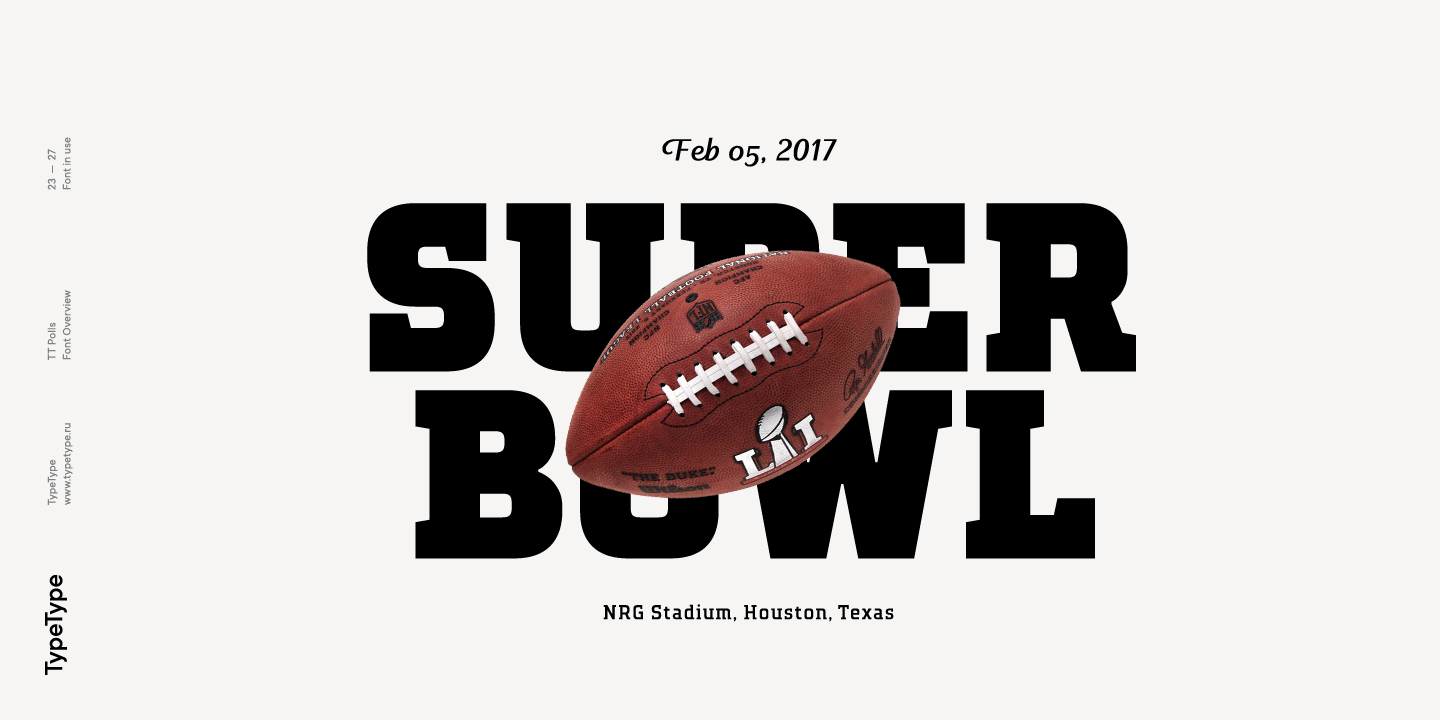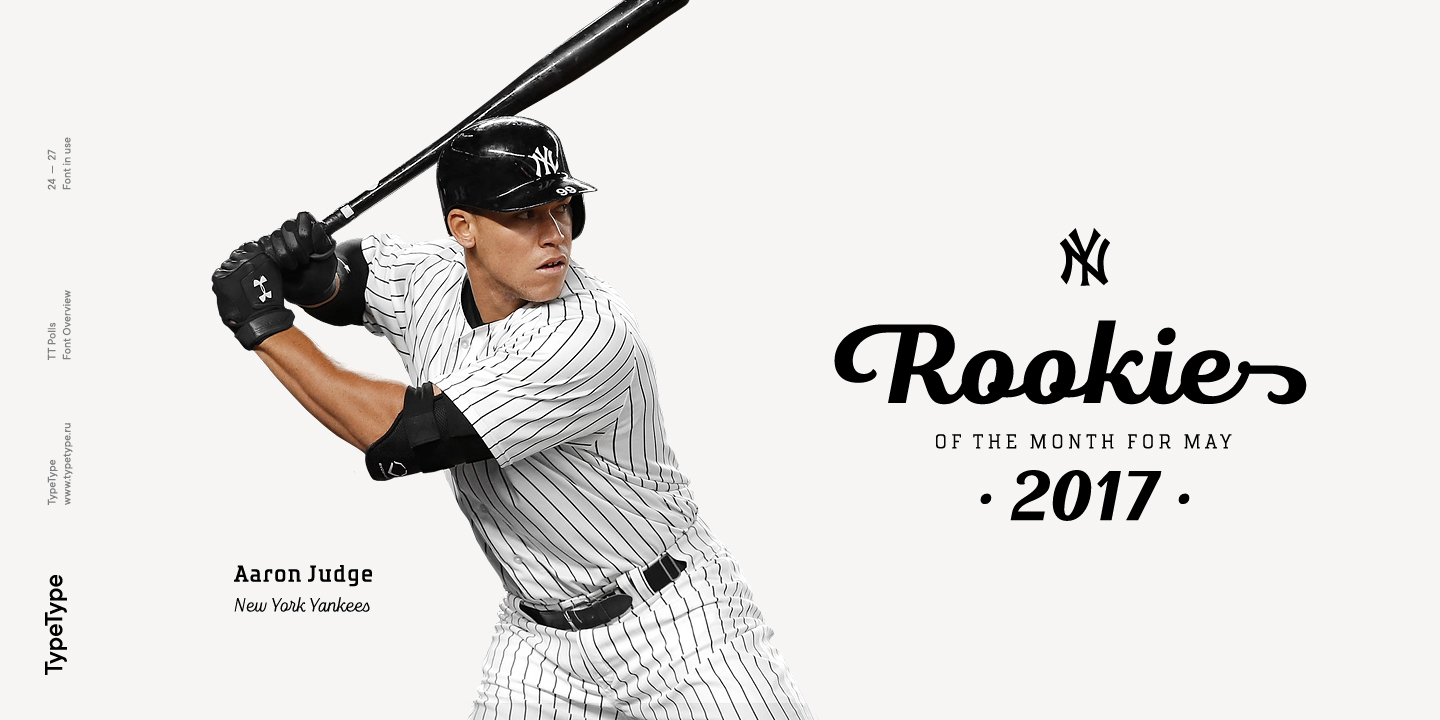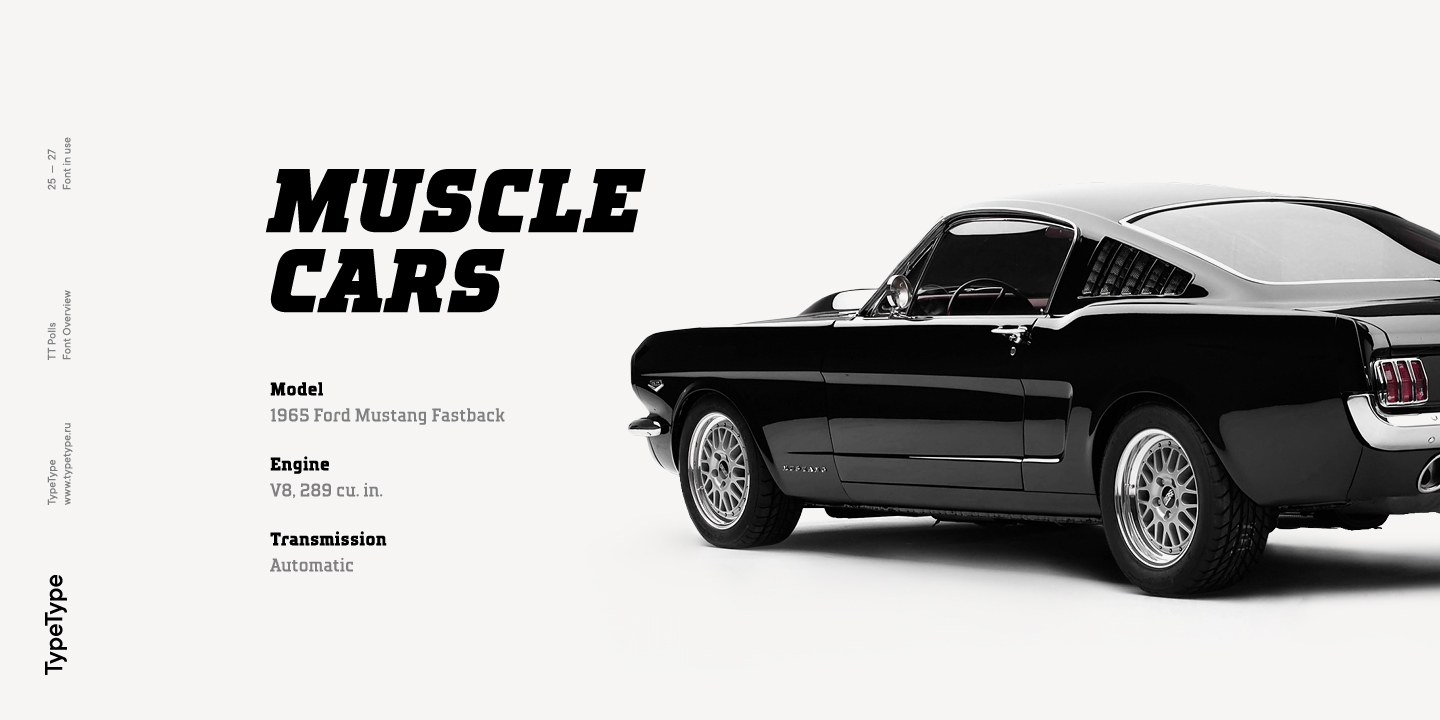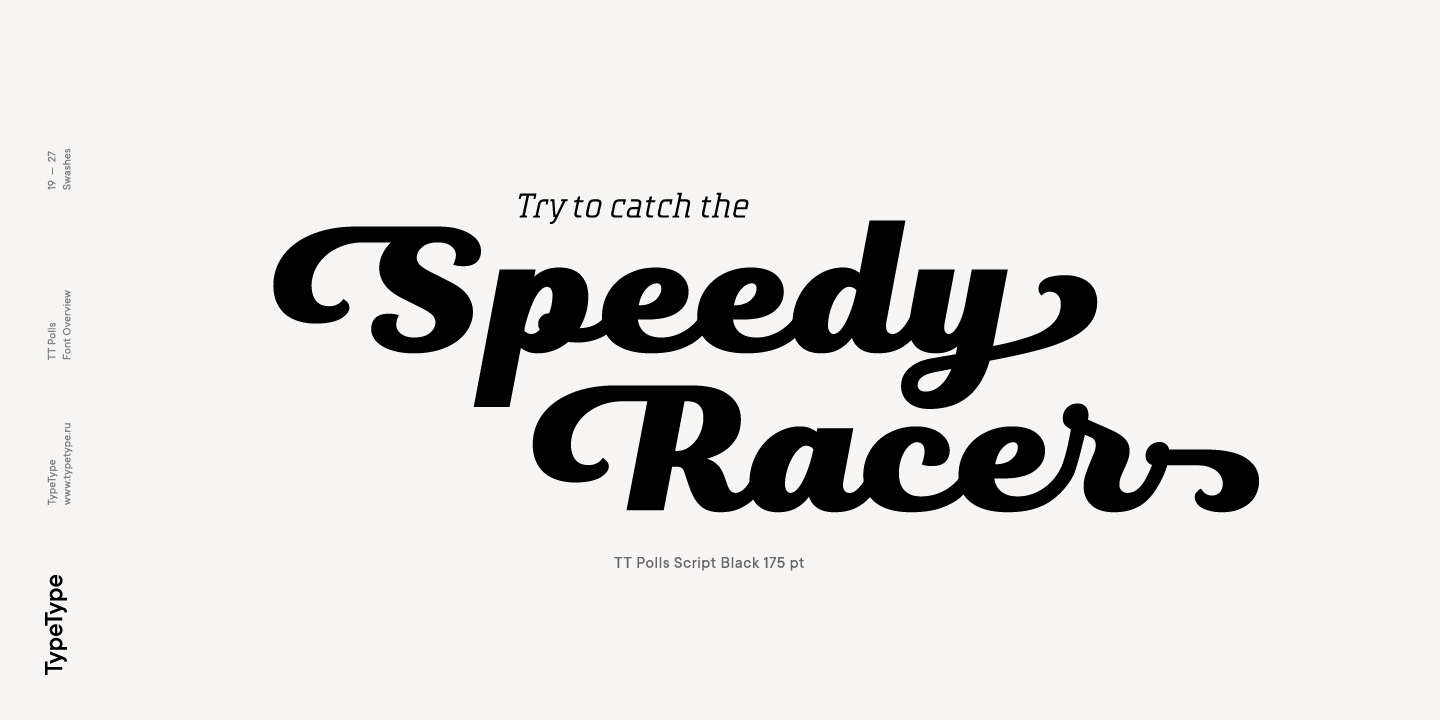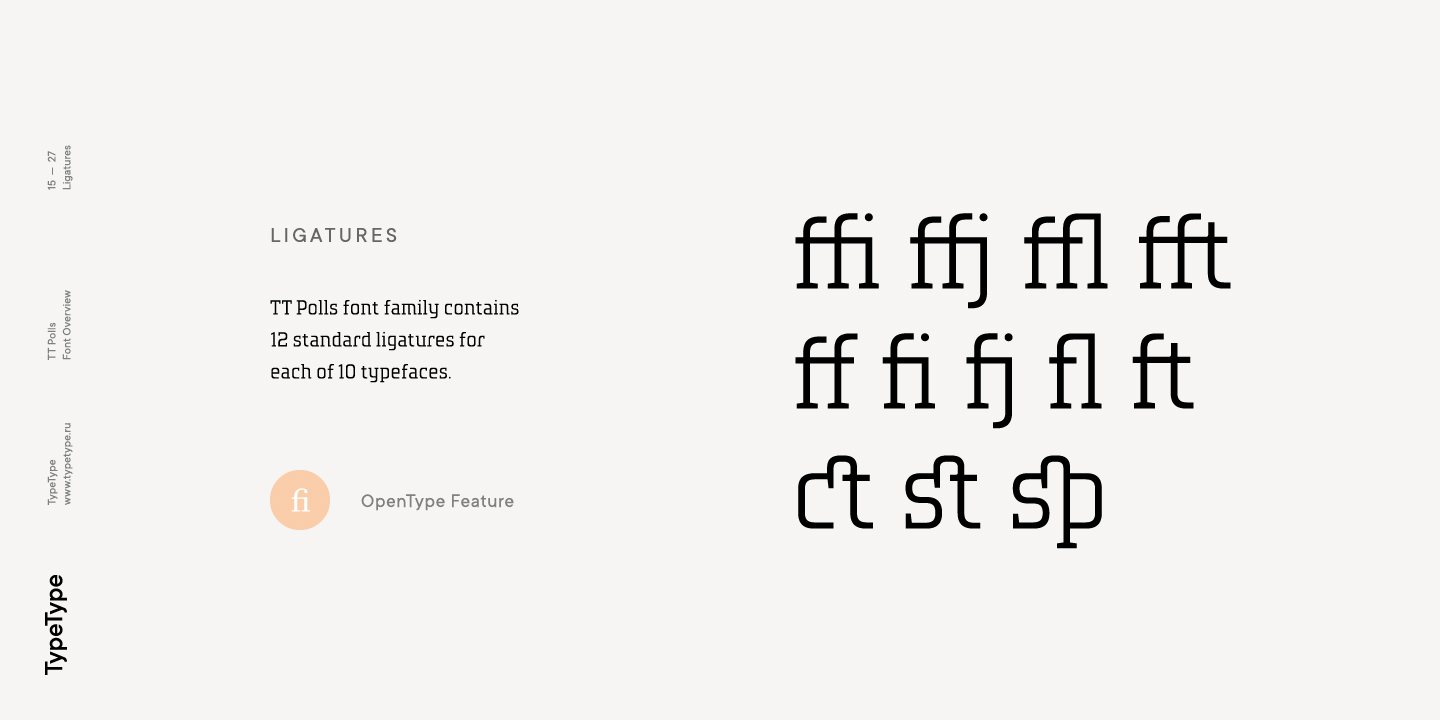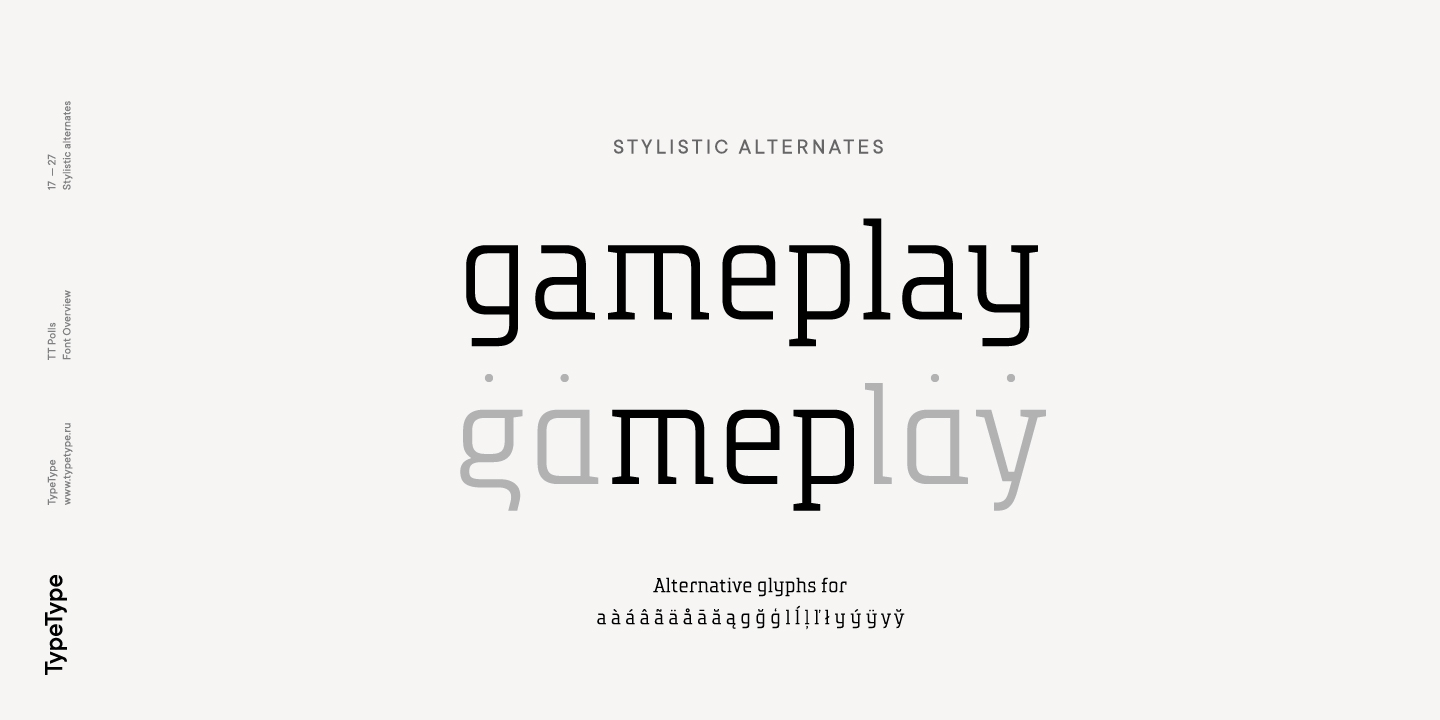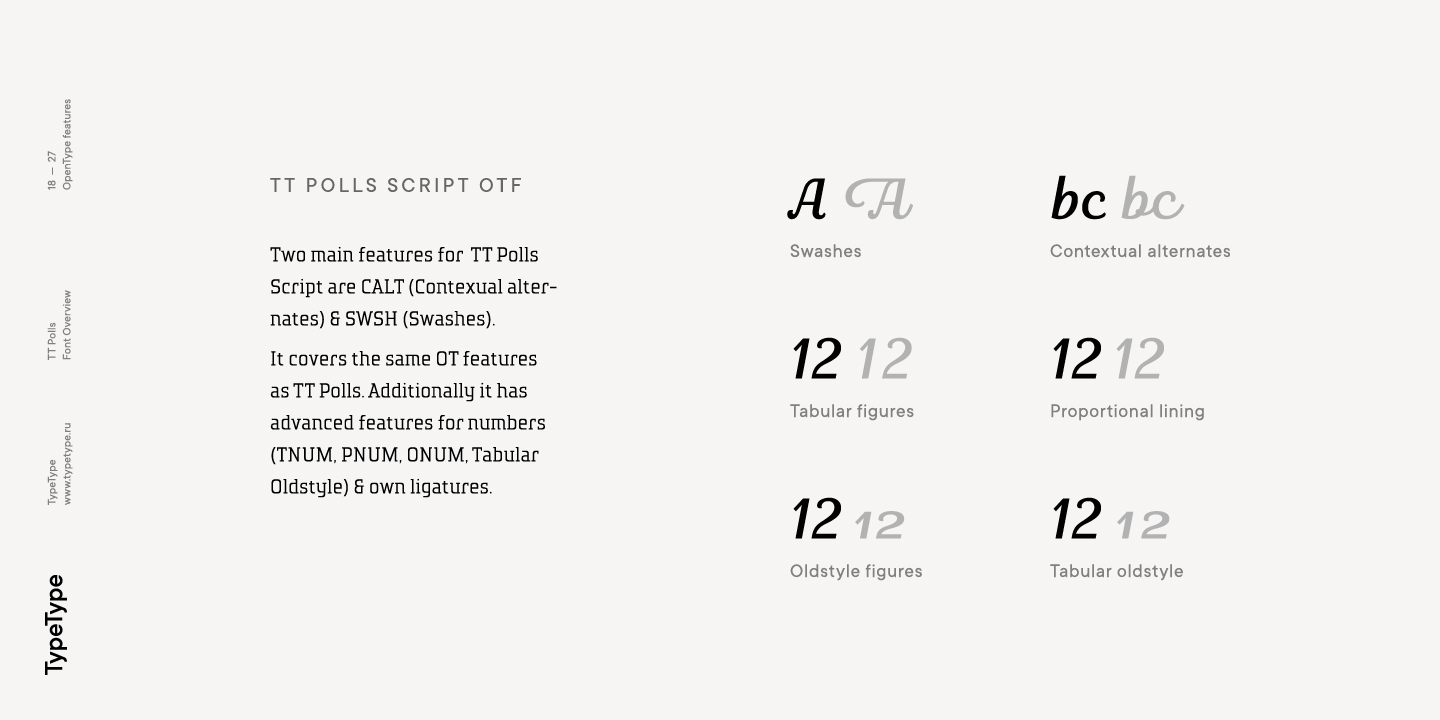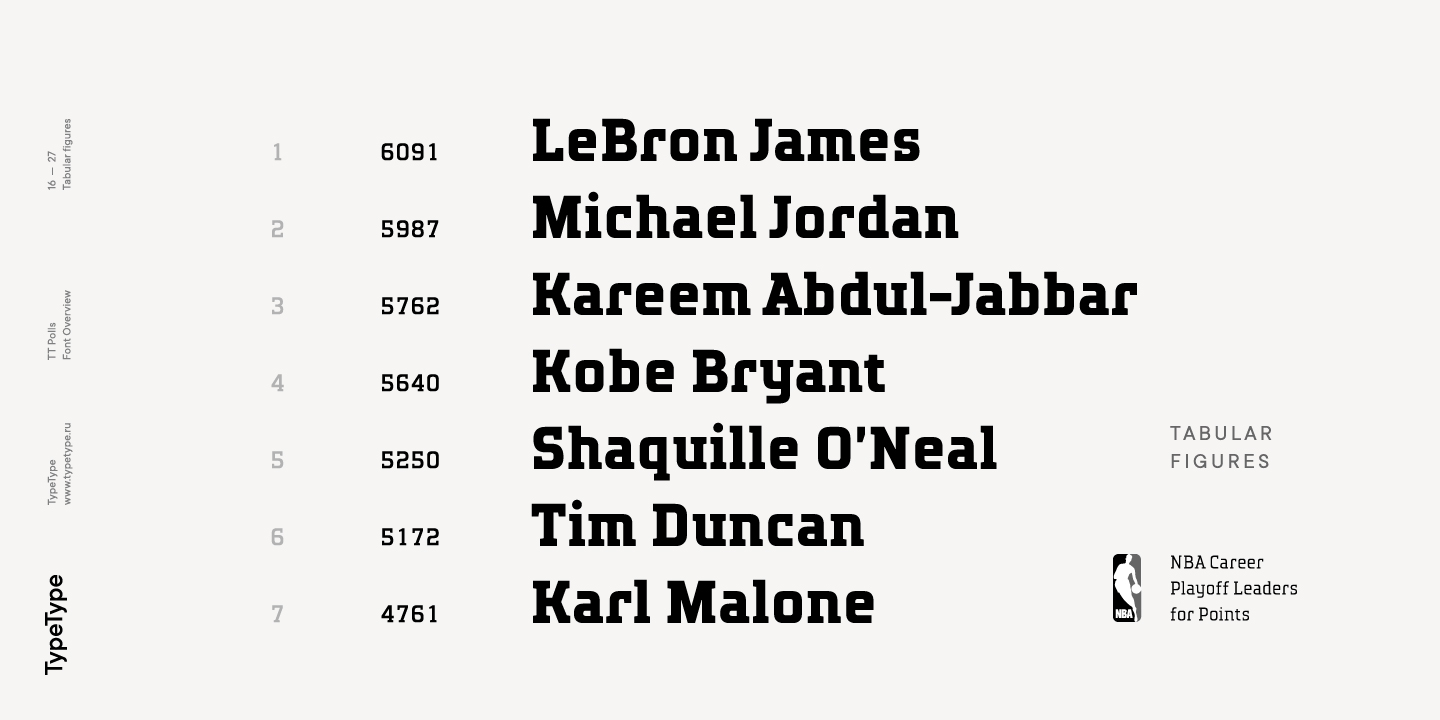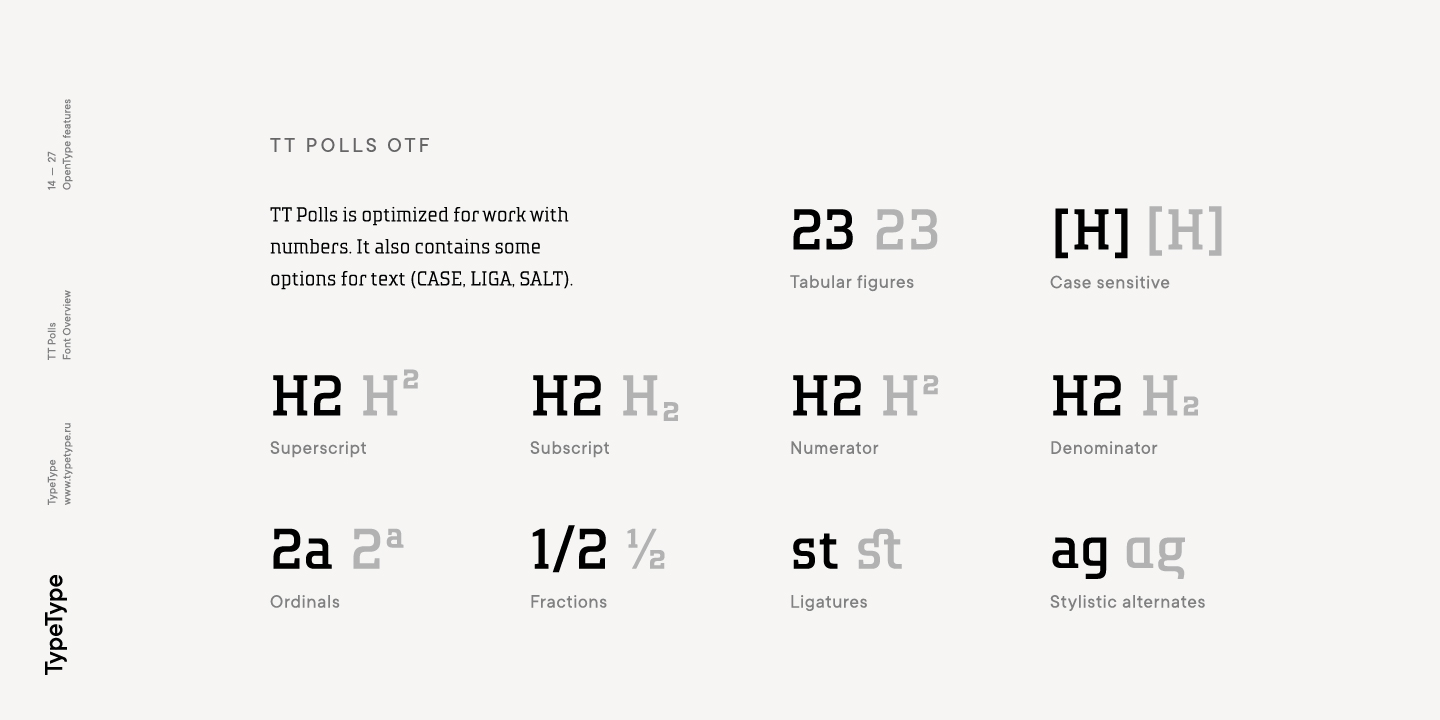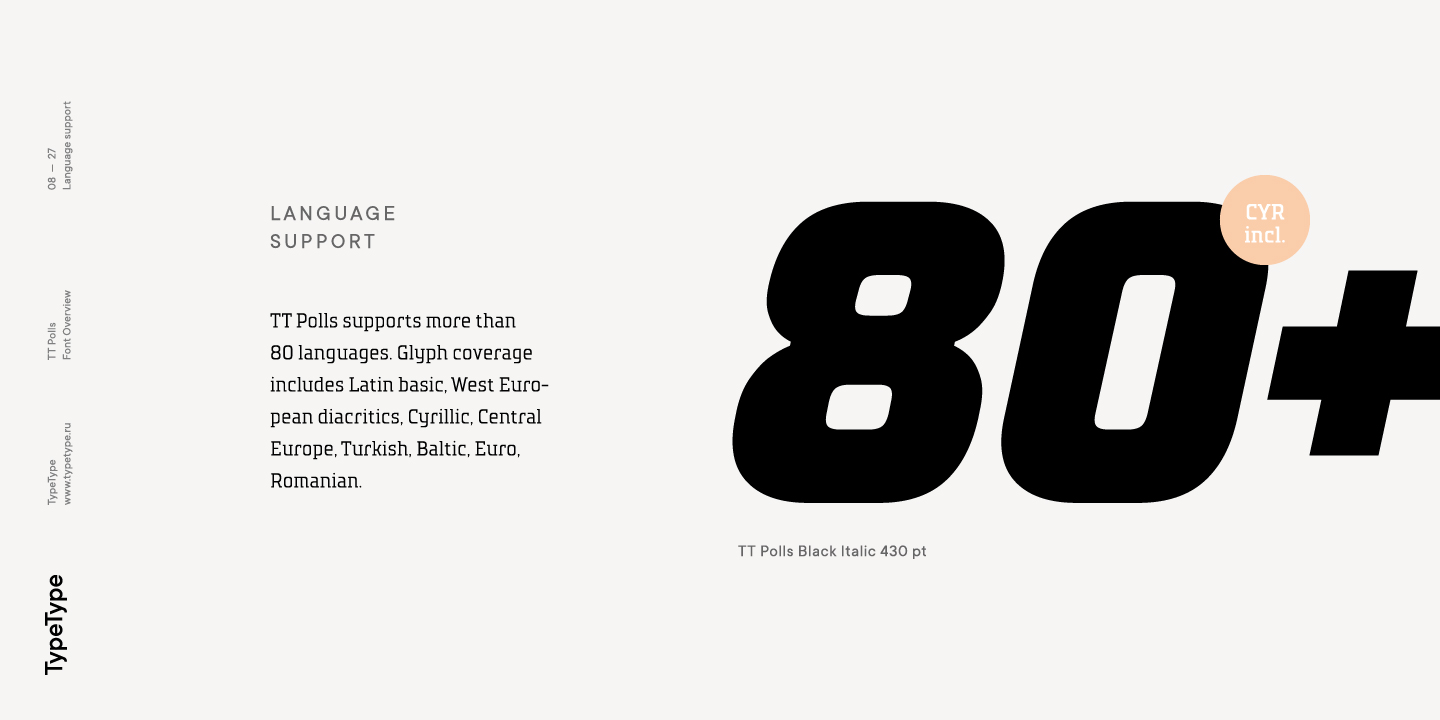
TT Polls subfamily consists of 5 weights and 5 italics. In it, we've implemented a ligatures set and broad support of OpenType features: calt, salt, liga, dlig, case, frac, sinf, sups, dnom, numr, tnum. Thanks to stylistic alternates it is possible to significantly change the nature of the font, making it more technological. TT Polls Script subfamily is a handwritten script in 5 weights. Geometric swashes created for all characters of basic Latin and Cyrillic alphabets contribute to its authenticity. A lot of OpenType features (swsh, liga, calt, case, frac, ordn, sinf, sups, dnom, numr, tnum, onum, pnum) are also integrated into the TT Polls Script. Although we've been considering the use of TT Polls in sports-related design — be that inscriptions on baseball players' shirts or numbers on a race car’s side — while creating the font family, we have to admit that the final version of TT Polls is also a great fit to a more casual design and application spheres.